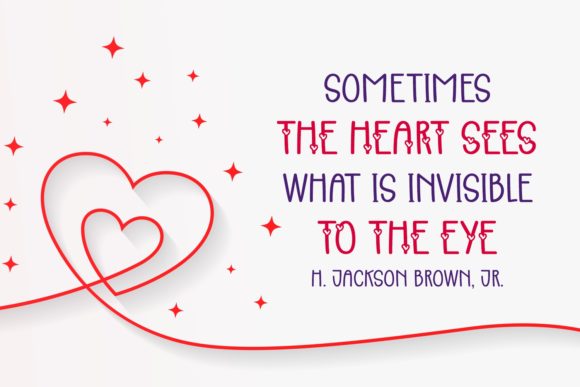
Secret Heart Font
db-ku.com - Script & Handwritten -- Secret Heart is a thin, sweet and simple handwritten font. It is suitable for any branding, product packaging, invitation, quote, t-shirt, label, poster, logo that you wish to develop.